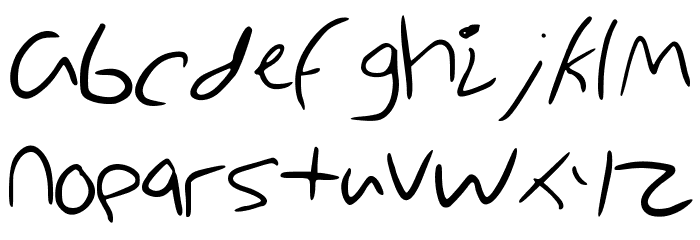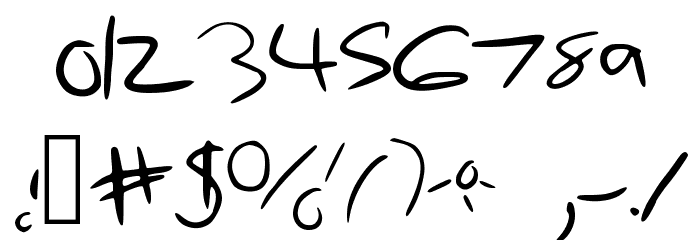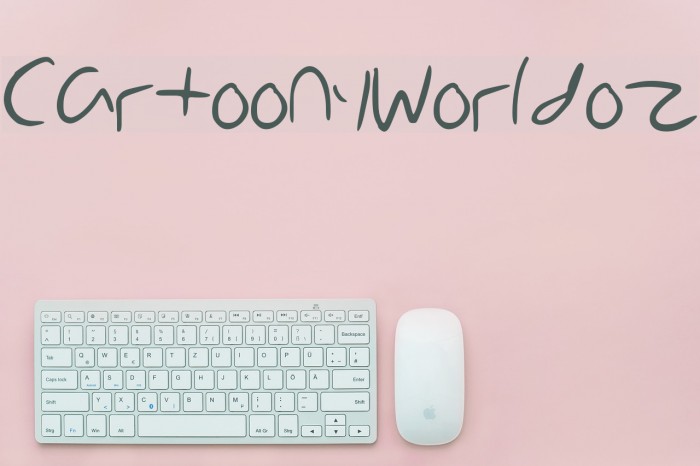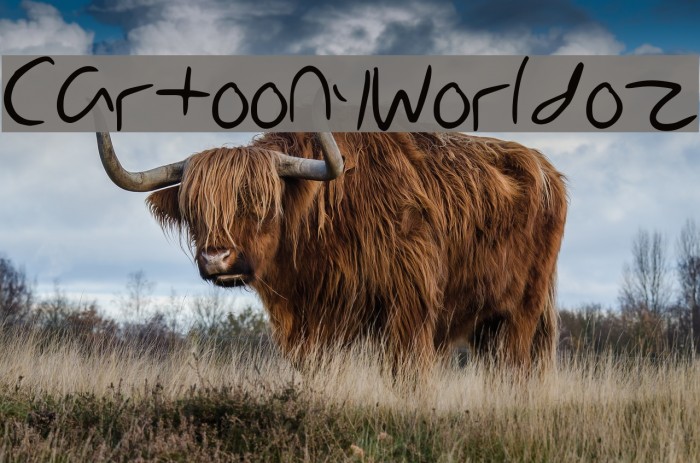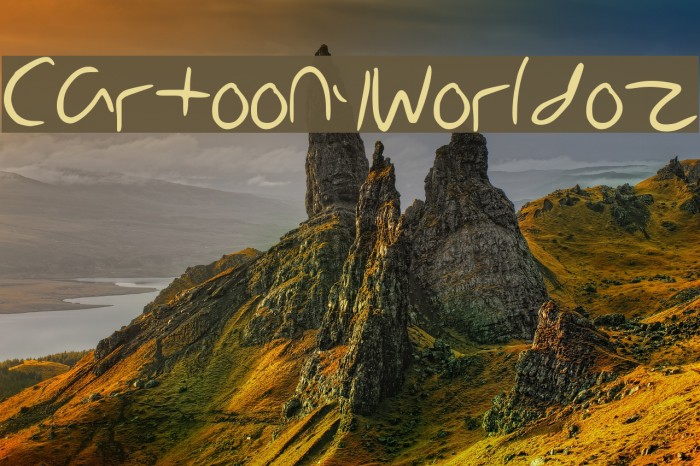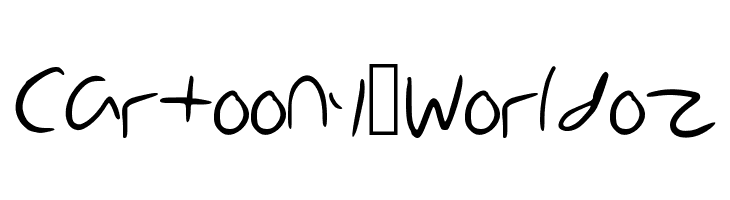
Cartoony_Worldoz Font
This playful and whimsical font features a hand-drawn, cartoon-like style that exudes a sense of fun and creativity. The letters are irregular and slightly tilted, giving them a dynamic and lively appearance. The strokes are smooth and flowing, with a casual, informal vibe. This font captures the essence of a child's handwriting, making it perfect for projects that require a touch of humor and lightheartedness. The characters are well-spaced, ensuring readability while maintaining their quirky charm. The font includes a full set of uppercase and lowercase letters, numbers, and a variety of special characters, all maintaining the same playful aesthetic.
A playful, hand-drawn font with a cartoon-like, whimsical style.
- Proposed Projects: Ideal for children's books, comic strips, playful branding, and greeting cards.
- Overall Style: Cartoonish, Playful
- Use Case: Headlines, Logos, Informal Text